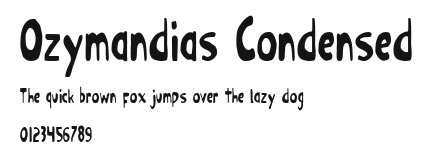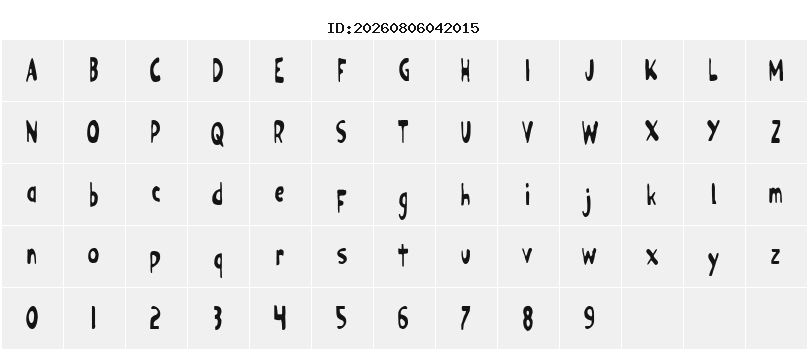
Ozymandias Condensed Preview
• Font Name: Ozymandias Condensed
• Font Style: Condensed
• Font ID: Ozymandias
• Full Font Name: Ozymandias Condensed
• PostScript Name: OzymandiasCondensed
About Ozymandias Condensed.ttf
Ozymandias Condensed.ttf is a modern, elegant sans-serif font designed for ultimate readability and visual harmony. Perfect for branding, headlines, web design, and print materials.